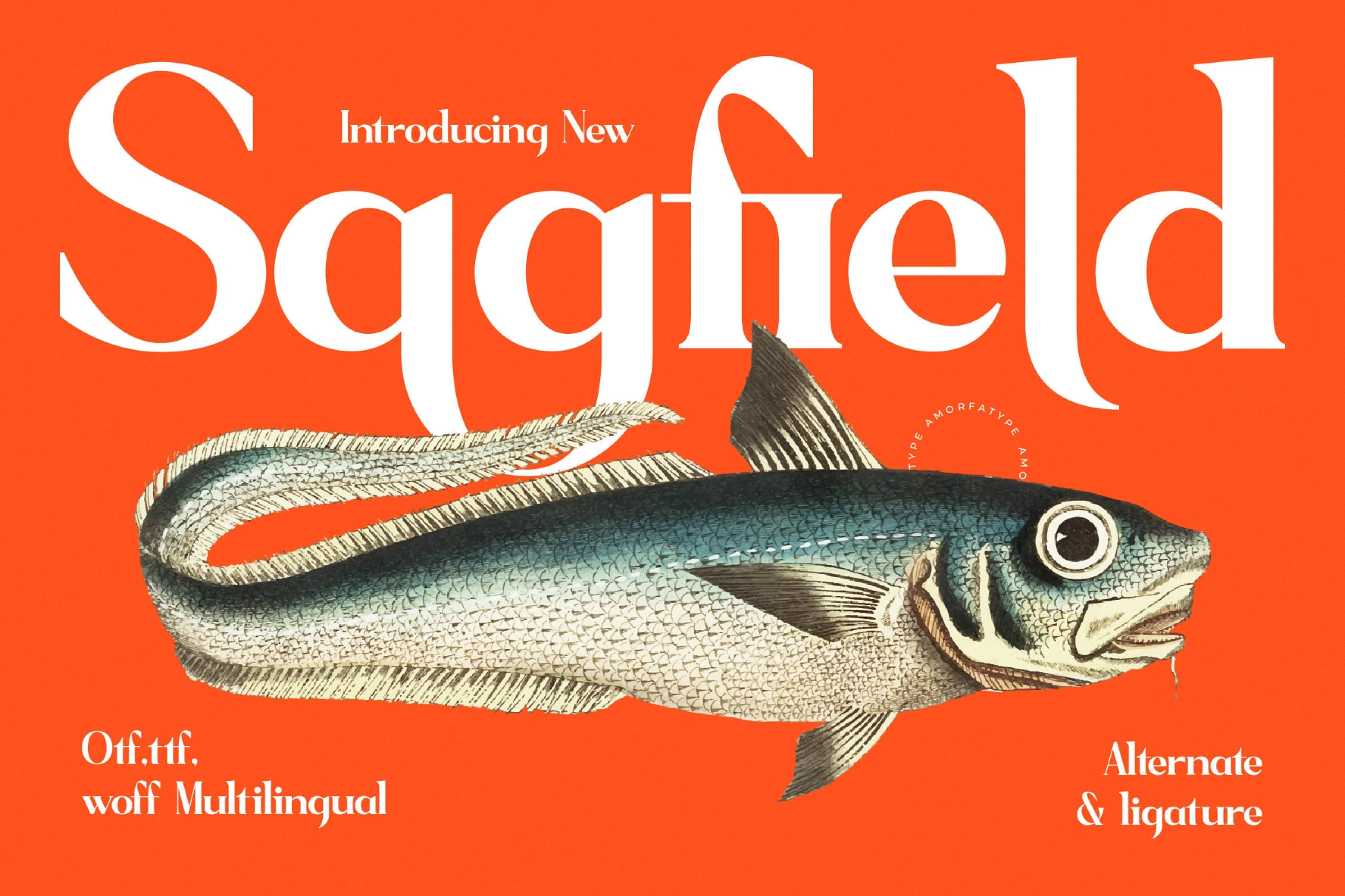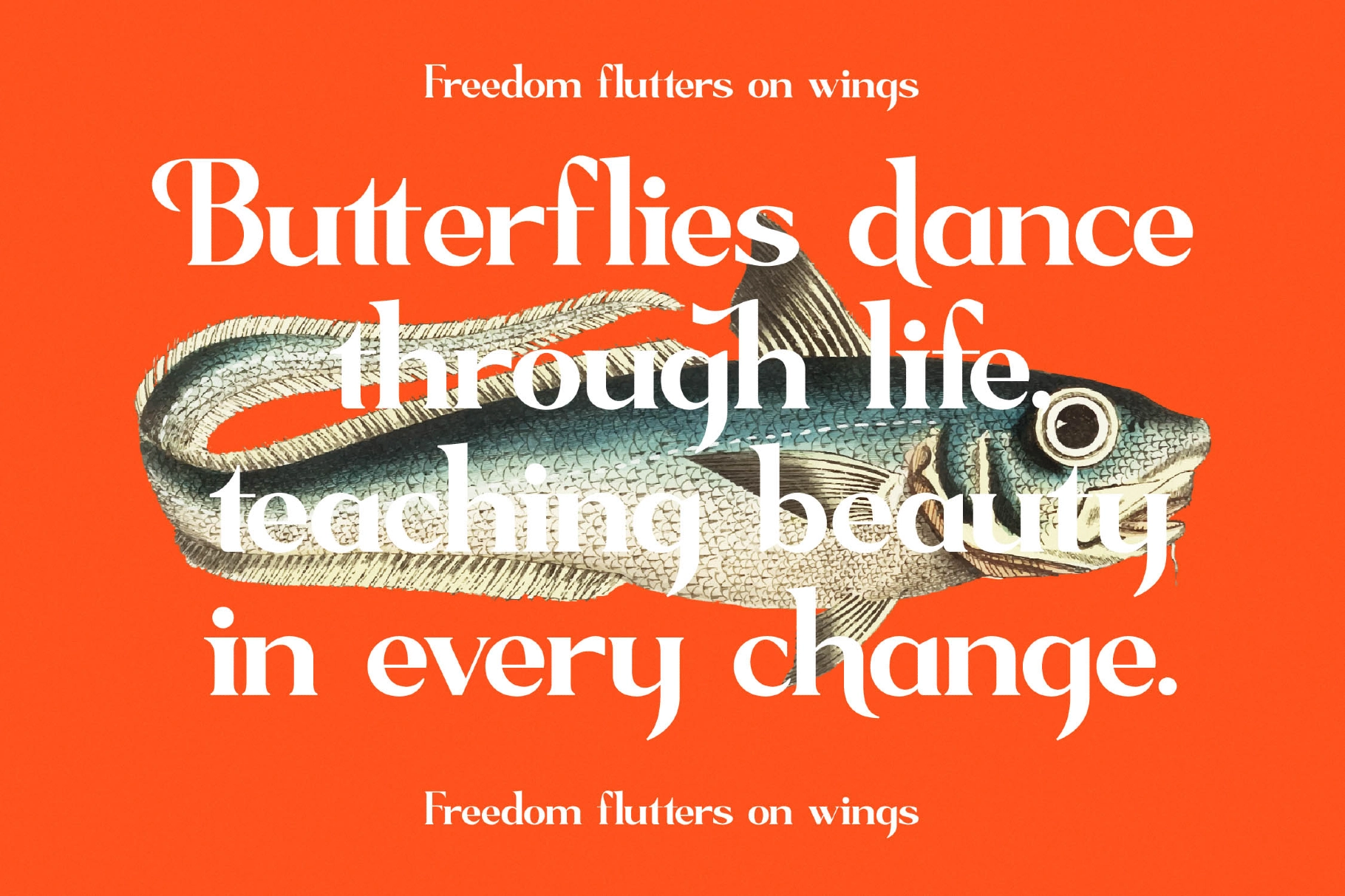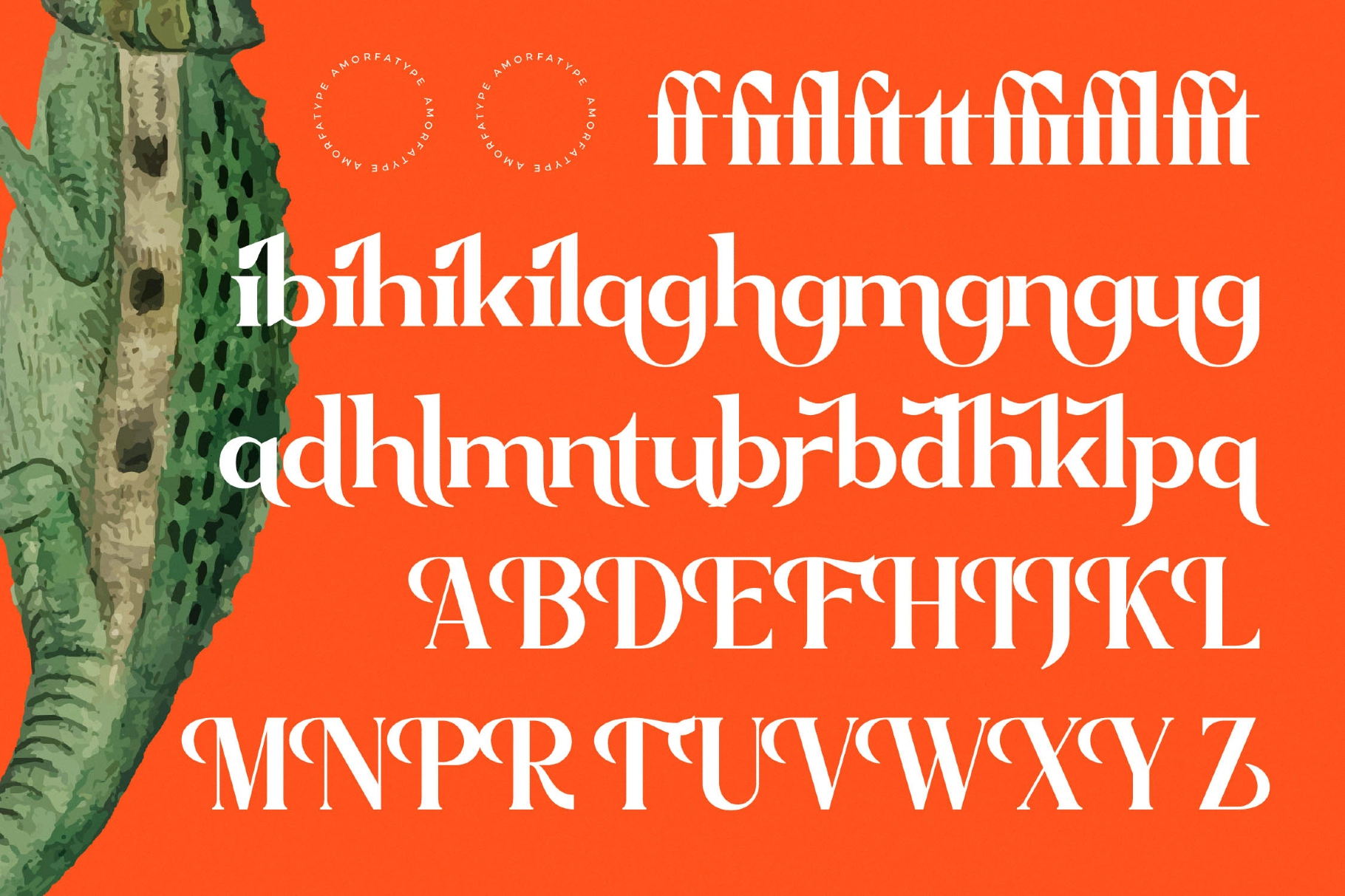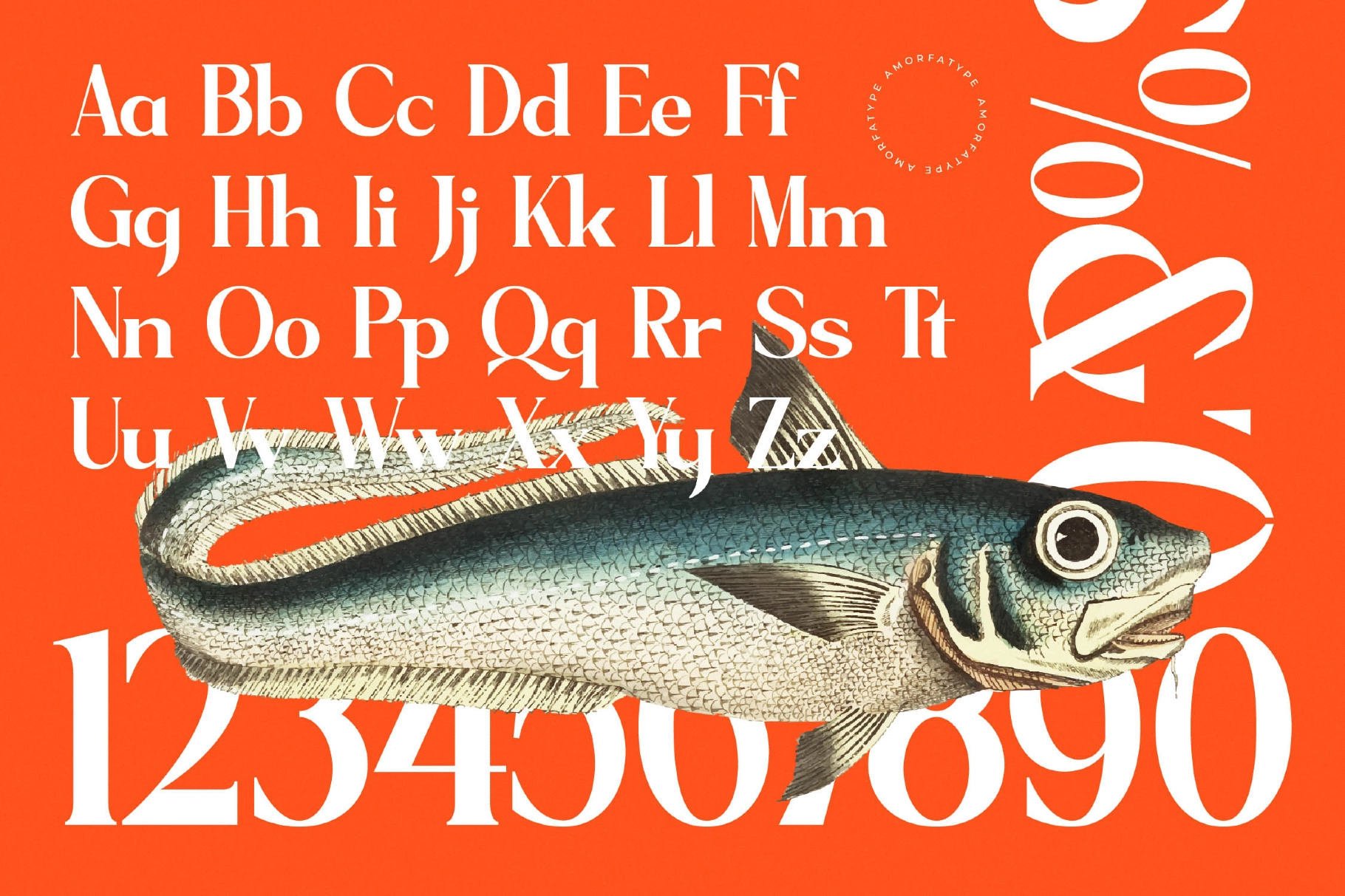
Sagfield - High-Contrast Display Serif Font
Sagfield leans into high-contrast strokes, sharply flared serifs, and curling swash tails on the descenders, giving the lowercase a theatrical, calligraphic edge somewhere between engraved signage and fashion-plate lettering. This high-contrast serif font commands a page instead of quietly filling it, suited to magazine mastheads, luxury labels, and editorial titling.
The italic companion softens that flare into a slanted, calligraphic run, so pull quotes and captions read lighter next to the upright's bolder presence. Stylistic alternates and swash variants dress up recurring letter pairs without forcing a single fixed look. Use it for logo lockups, cosmetic and fashion packaging, wedding stationery, editorial headlines, and album covers.